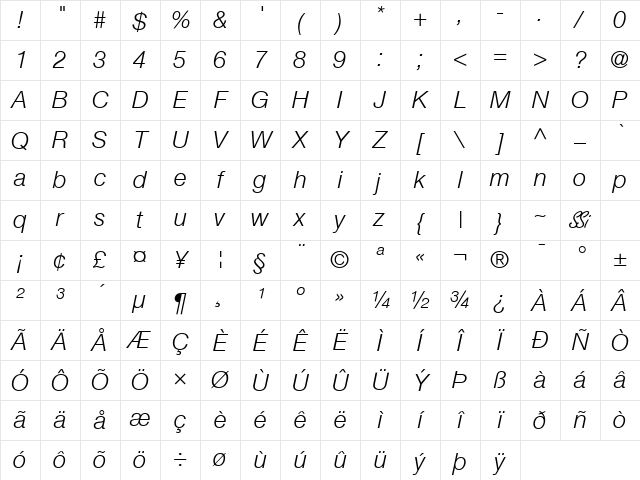
Context Reprise Light SSi Light Italic
Context Reprise Light SSi Family
Complete Context Reprise Light SSi Light Italic glyph index. Displaying only characters natively supported by Context Reprise Light SSi Light Italic font.
Design Context for Context Reprise Light SSi
Context Reprise Light SSi is a composed and adaptable typeface that performs quietly and consistently across a wide range of design contexts. The slanted form adds forward momentum and visual energy. Its slender proportions lend an understated elegance to any composition.